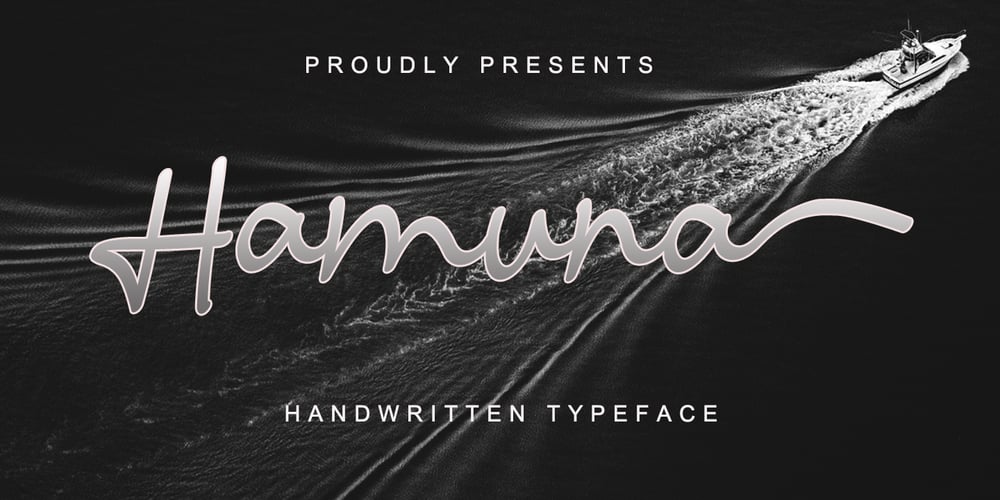
Hamuna Font Family was designed by Agung Eko Nugroho and published by AEN Creative Studio. Hamuna contains 1 styles and family package options. Hamuna is a great font for your project. Hamuna is a simple, casual and elegant script featuring a natural look in its ligatures and beautiful swashes. It is perfect for logos, posters, social media posts, signatures and much more!